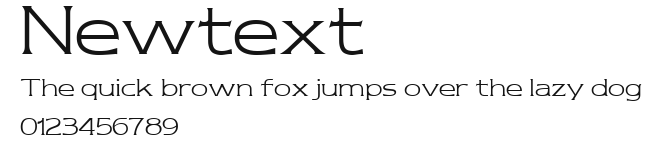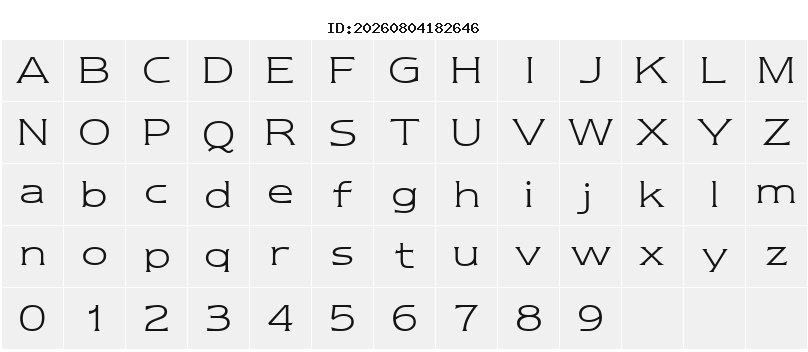
• Font Name: Newtext
• Full Font Name: Newtext Regular
About Newtext.ttf
Newtext.ttf is a modern, elegant sans-serif font designed for ultimate readability and visual harmony. Perfect for branding, headlines, web design, and print materials.